Top 30 Best Old School Tattoo Fonts
The very best fonts for your flash painting projects.
Etsy, Big Cartel, and Shopify have made it easier than ever to print and sell your tattoo flash prints. The wide variety of 'Old School' tattoo-style fonts make it easy to test layouts and letter your projects. And after spending hours upon hours painting, it's nice to not have to worry about making a spelling error!
Looking to take your flash paintings to the next level? Here are the Top 30 Best Old School Tattoo fonts to help you dominate that Etsy, Big Cartel, Red Bubble, Society6, and Shopify marketplaces.
New old school tattoo fonts are being released all the time, and some of them shoot to the very top of the list very quickly. Check back from time to time and you may see a new font you've never seen or heard of before!
Tattoo Museum
What is there even to say about Tattoo Museum. Tattoo Museum burst on the scene in 2016 and essentially took over the game from every other traditional tattoo font that had been released until that time.
If you've ever seen a t-shirt and wondered what font it is, it's probably Tattoo Museum. A remarkable piece of work by Woodcutter.
Sailor Beware
Sailor Beware is one-of-a-kind when it comes to tattoo fonts, a hand-drawn oblique (angled) font with a center-line serif on the left side only. Sailor Beware gives any traditional flash piece a more modern flair. Little known fact: this font was inspired by a Title Fight tour poster.
Sailor's Fat Tattoo Script
There are many Sailor Jerry tattoo fonts available, but the vast majority are stiff and computerized. They just don't evoke the feeling of anything classic tattoo art. That's where the Sailor's Fat Tattoo Script comes in.
Sailor's Fat Tattoo Script is a hand-drawn (and now digitally drawn) half-filled and fully filled Romanesque nautical tattoo font with decorative center-line serifs, wavy arms and foot serifs, and flow-through cross-bars on the A and H.
The latest version now features some unusual non-English characters and ligatures, numbers, punctuation, and a whole host of accented letters. Finally a way to capture that nautical tattoo vibe without stiff and mechanical computerized letters.
Sailor's Fat Tattoo Script comes in Regular (half-filled), Italic (oblique), Black (filled), and Black Italic versions.
AZ Vintage Tattoo
AZ Vintage Tattoo is a rough-hand old school tattoo font. The font features a number set, a useful selection of common punctuation, and a small caps set in the upper case. Be careful - the small caps set features thinner lineweights than the full height letter set.
Brave Sailor
Brave Sailor is the real deal. This is an expanded hand-drawn rendering of classic tatto style with understanded serif detailing, dropped legs on the K and R, and a lot of style throughout. Featuring European characters like AE, Eth, Thorn, Long S, and German Double S, as well as a huge selection of accented vowels.
Fun fact: this font was created by tracing over Fette Egytienne.
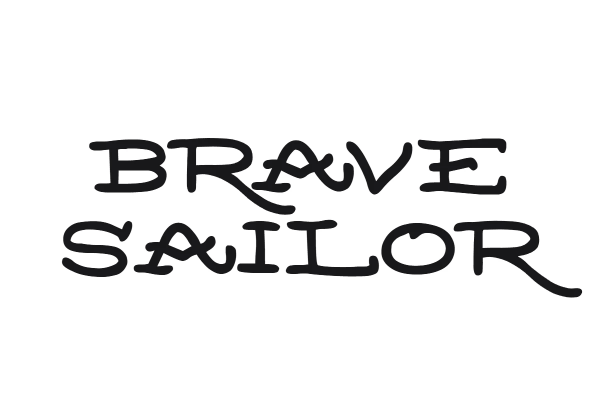
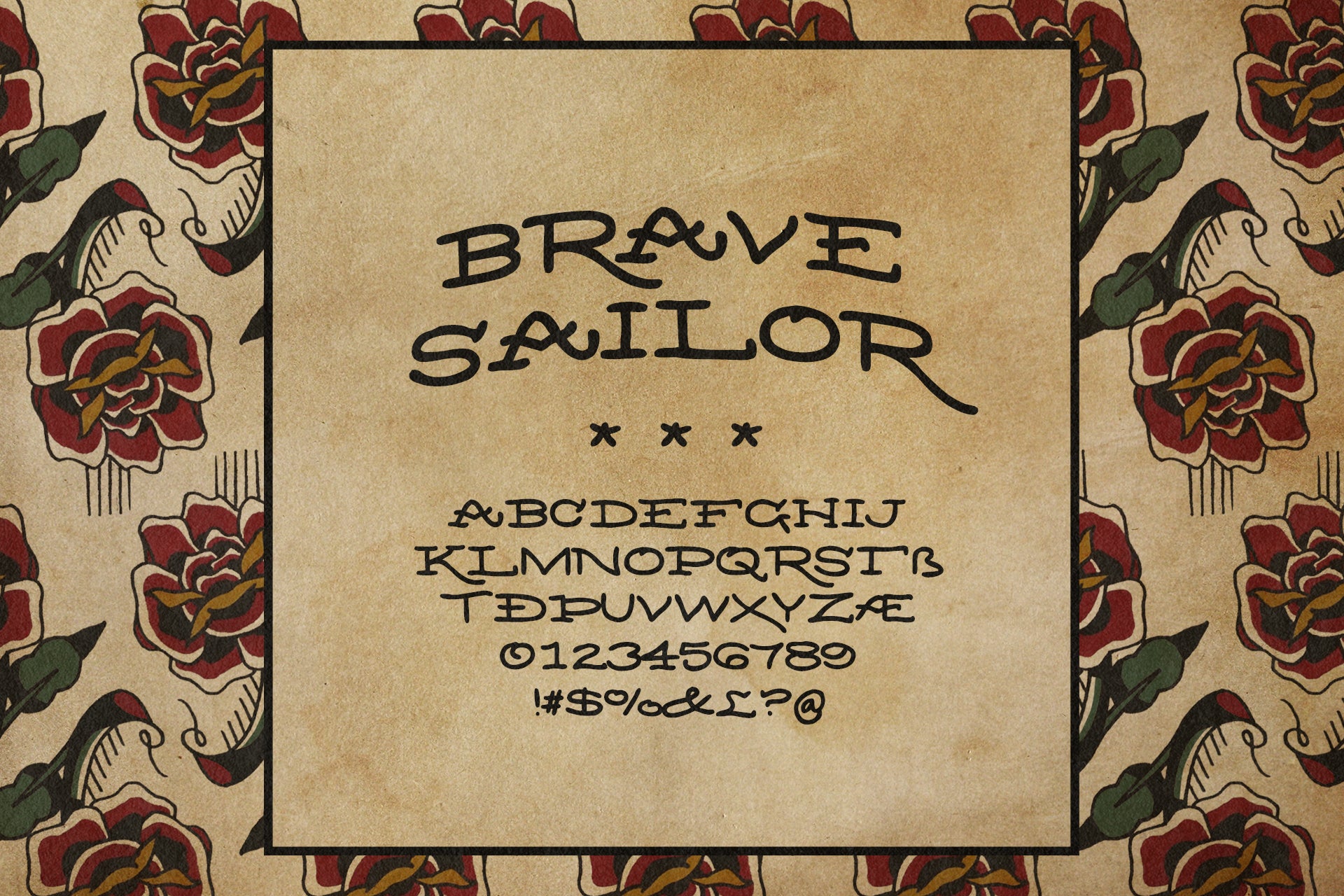
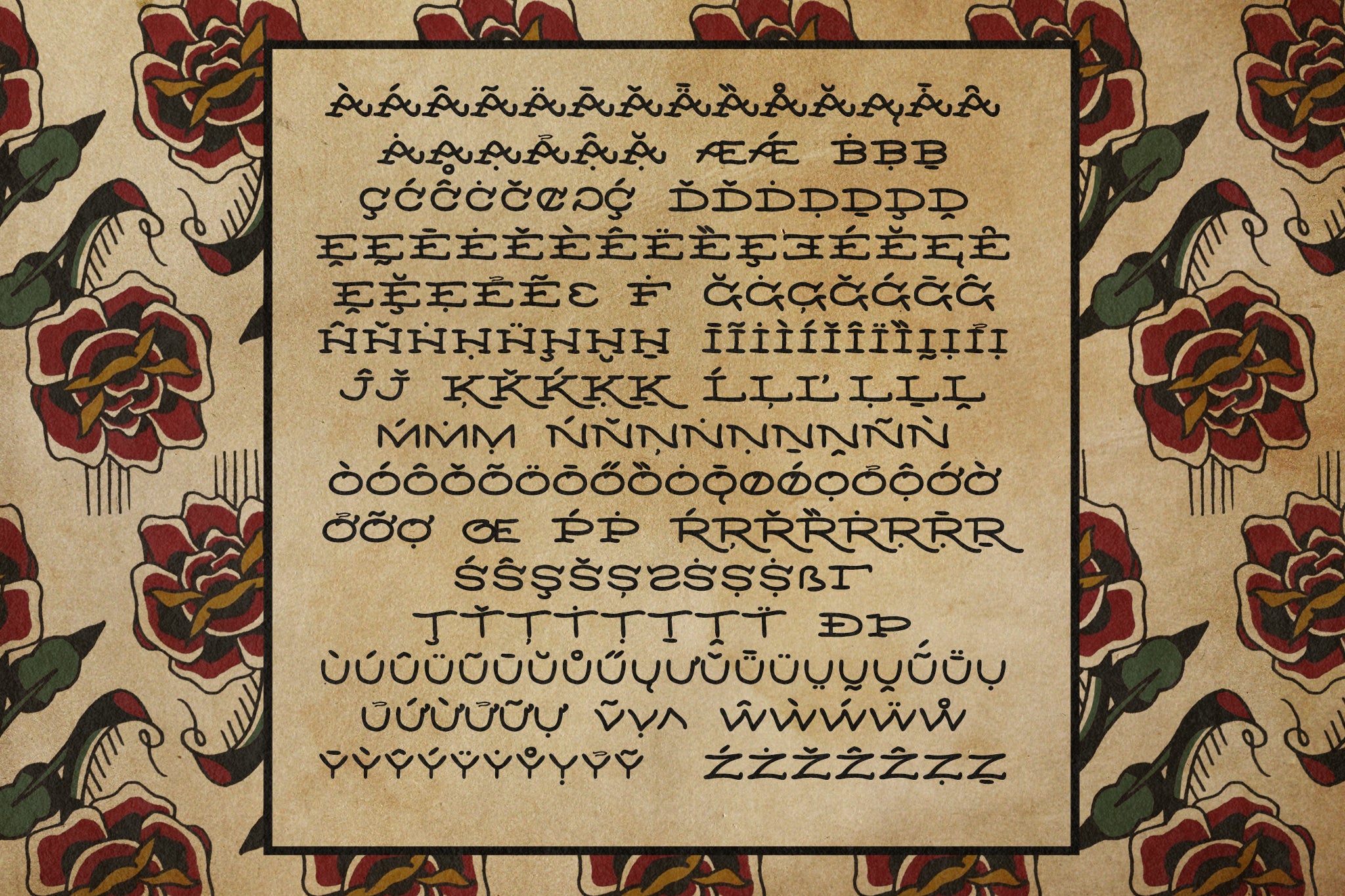
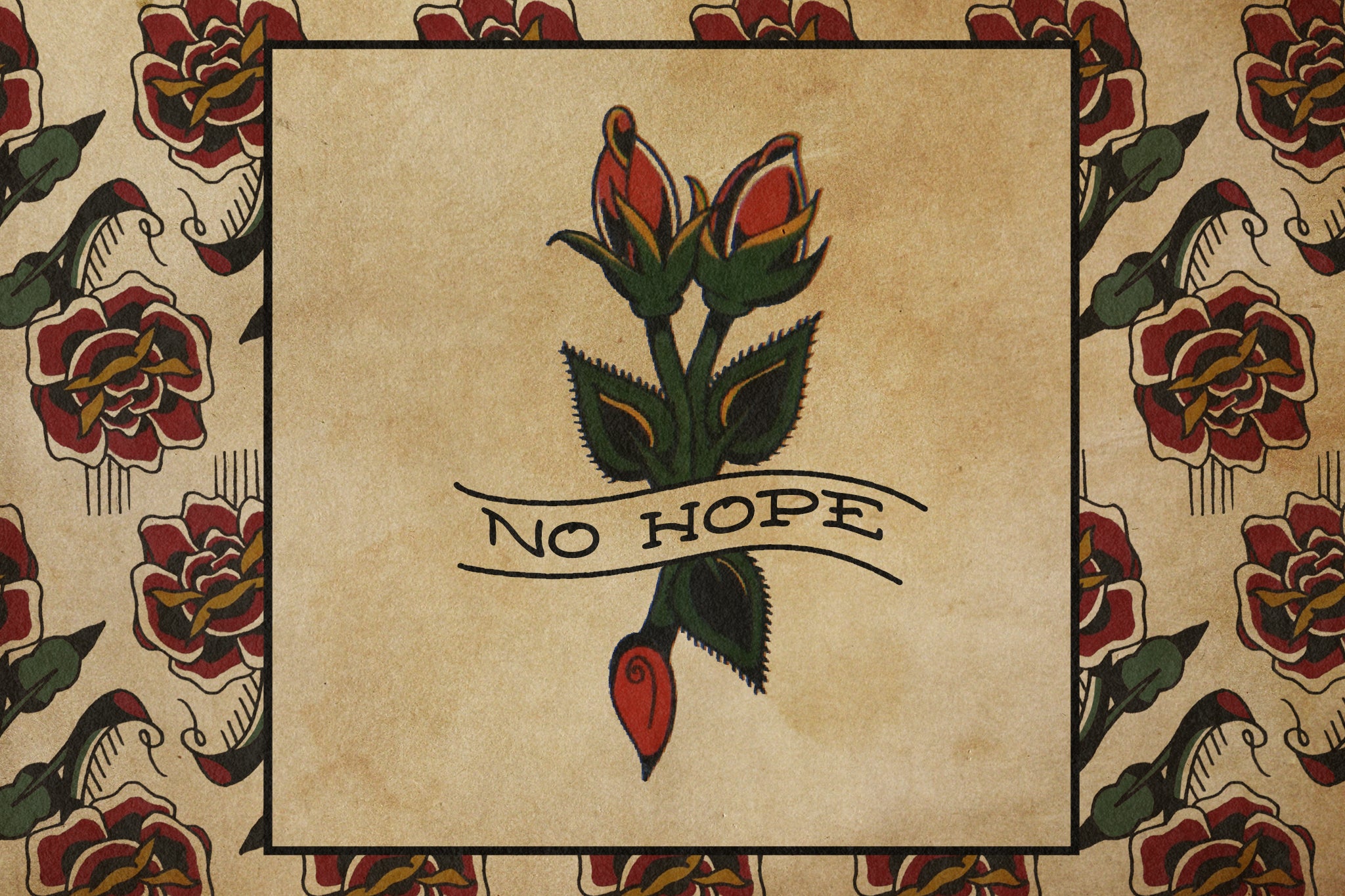
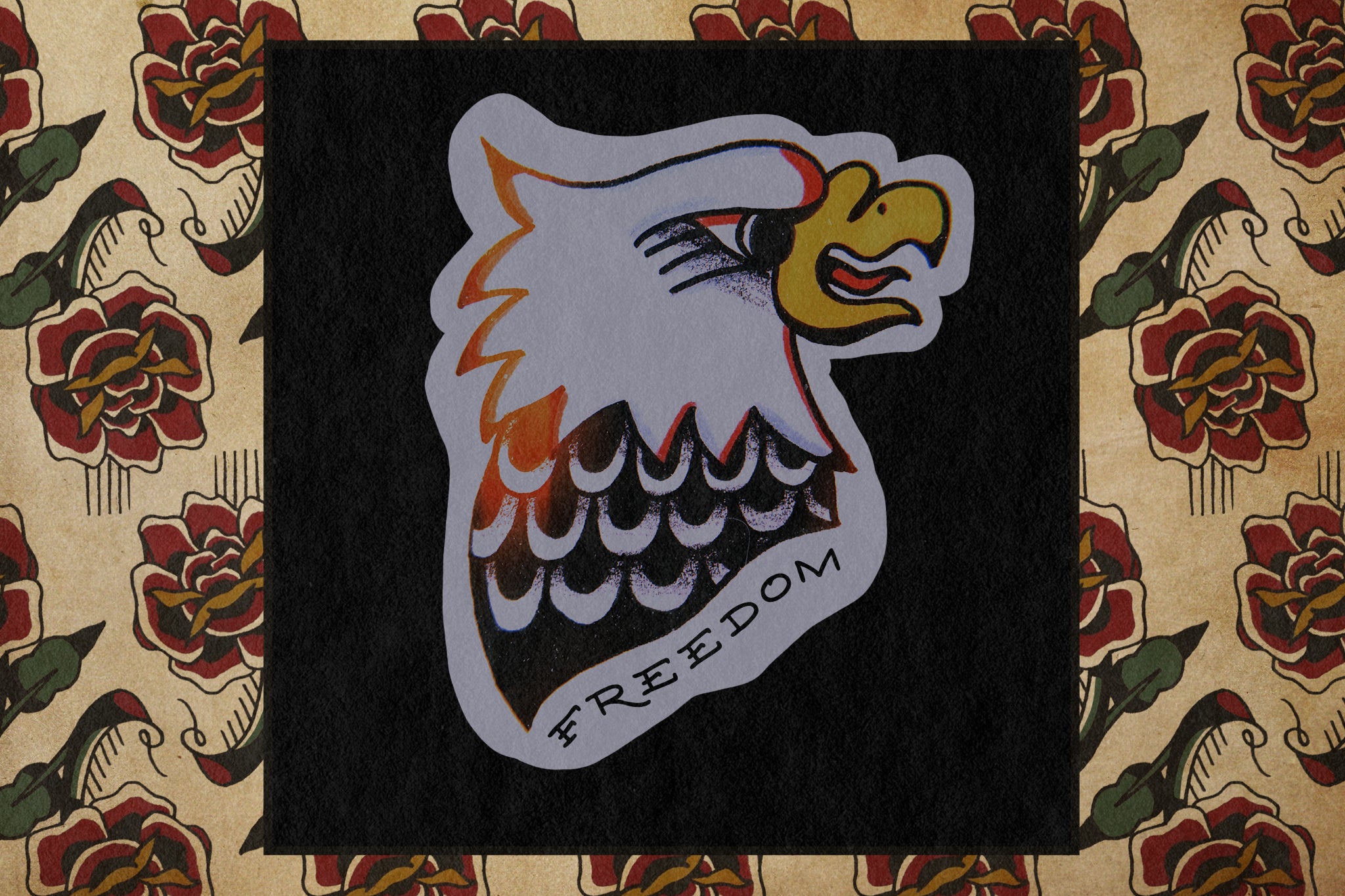
Sailor Scrawl
Sailor Scrawl is actually a family of fonts, which is why it's on this list. Sailor Scrawl is a hand-drawn Romanesque tattoo font that comes in three different versions. Each version has a different infill pattern.
The standard Sailor Scrawl version has an open diamond in the center of the thick stem. Sailor Scrawl Black has no open diamond in the thick stem. Sailor Scrawl Fancy has an open infill on the thick stem with a diamond pattern.
Sailor's Diary
When Sailor's Diary came on the scene a few years ago, it was a breath of fresh air. A well-crafted smooth sans serif with an unbelievable number of alternates for letters AND numbers? It was something that really had never been seen before. And possibly never since.
Also includes scrolls with editable text? Bad Taste has delivered, and then some.
Hello Sailor Monoline
The original Hello Sailor font has been one of the most commonly-used old school tattoo fonts in merch design today. The new version, Hello Sailor Monoline, replaces each hand-drawn letter form with an evenly-weighted monoline. The new monoline build makes the font even more useful for merch design and flash paintings.
Hello Sailor Monoline is an all-uppercase font with additional serifs and alternates in the upper case. Traditional tattoo filler symbols have been included in the punctuation and number glyphs.
Shipmates
Shipmates is an interesting entry into the list of best tattoo fonts. No decorative serifs or spurs, no decorative inline pattern, and yet found time again on many an Etsy store flash sheet. Clean, reliable, that hand-drawn authentic feeling, and a huge selection of stars and dots for filling open areas.
Bellfield
Bellfield is a hand-drawn old school tattoo typeface inspired by traditional American tattoo designs. The typeface includes an uppercase alphabet with a few heavily-flourished alternate capitals. Bellfield features a much thicker lineweight than most hand-drawn old school tattoo fonts, which means it will show up better on large projects like apparel. Overall, it's a welcome addition to our list!